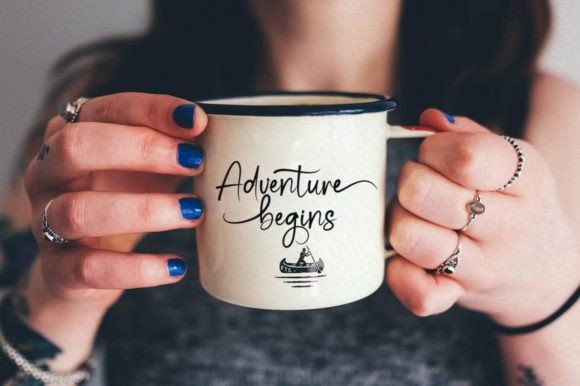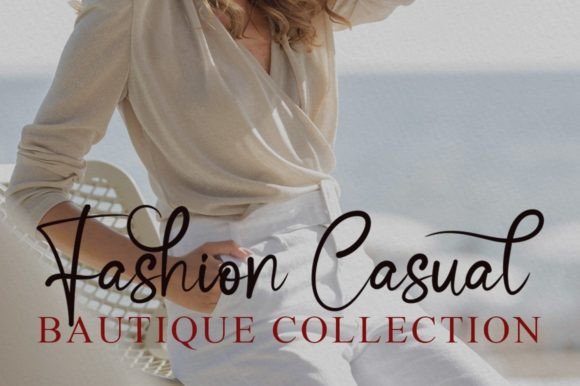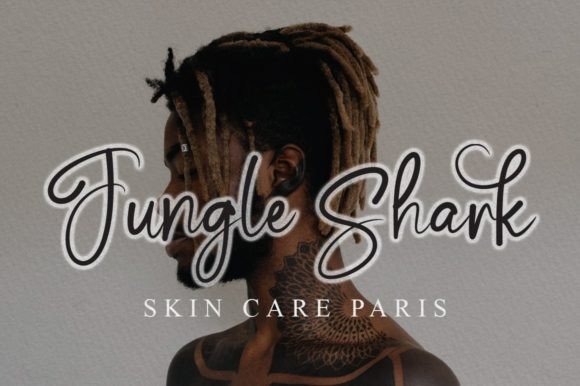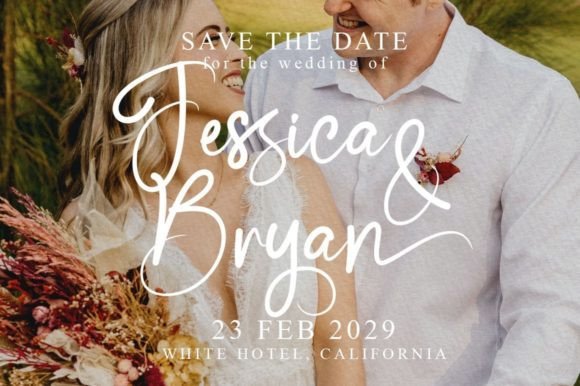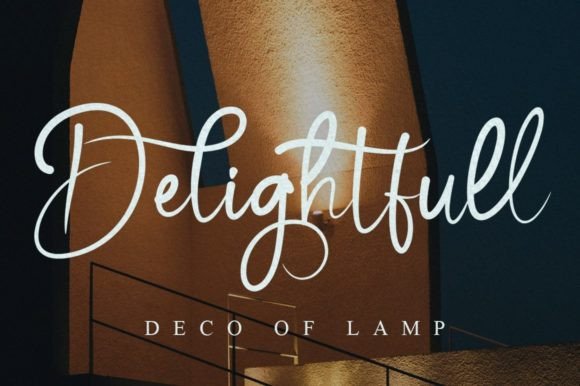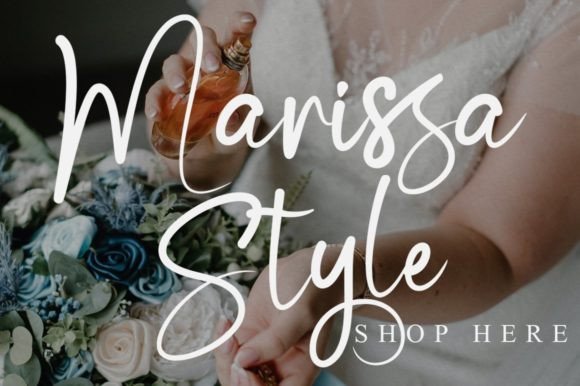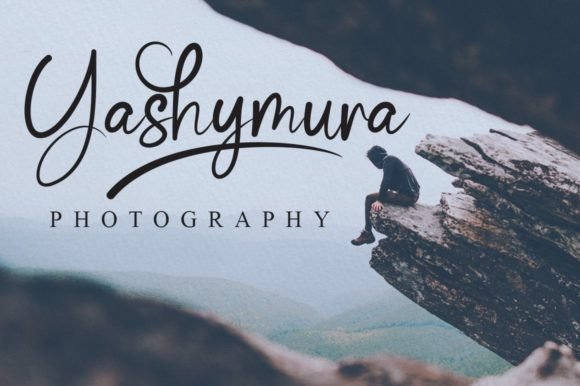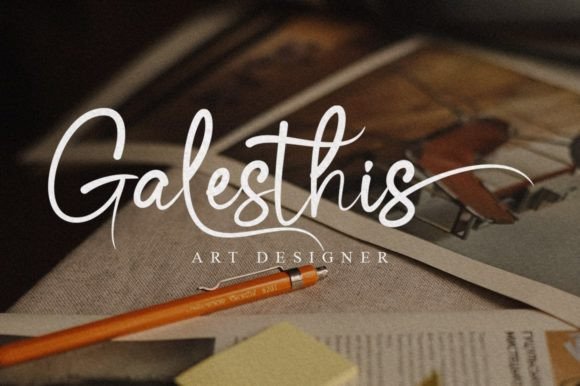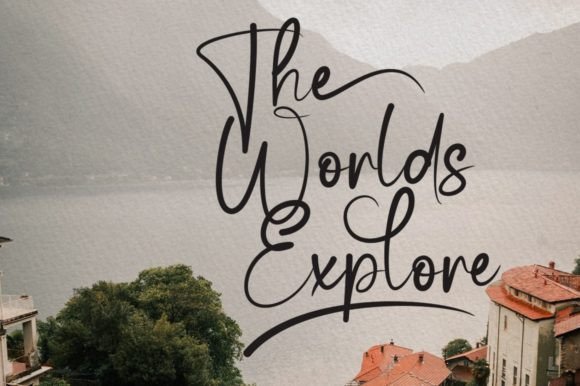
Shella Holix Font
About Shella Holix Font
“Shella Holix” is a font that effortlessly combines style and elegance, creating a beautifully handwritten script. Its sophisticated and refined appearance makes it an excellent choice for a variety of design applications, including wedding invitations, thank you cards, quotes, greeting cards, logos, business cards, and any project that benefits from a personalized touch.
The font’s stylish and elegant design adds a sense of luxury and sophistication to your text. Its handwritten style gives your designs a personal and artistic touch, making them suitable for both formal and creative contexts. “Shella Holix” enhances the visual appeal of your projects, creating a sense of timeless beauty and grace.
The font’s PUA (Private Use Area) encoding allows easy access to a wide range of glyphs and swashes, enhancing its versatility and customization options. Designers can effortlessly access these special characters to create unique and intricate typography for their projects. Whether you’re looking to add decorative elements or experiment with different letter combinations, “Shella Holix” provides the creative freedom to do so with ease.
Embrace the style and elegance of “Shella Holix” and let it elevate your creative projects to new heights. Its sophisticated and refined style ensures that your designs leave a lasting impression, conveying a sense of grace and artistry. Whether used in print or digital media, this font adds a touch of class to your compositions, making them visually stunning and captivating. With “Shella Holix,” you can confidently create designs that reflect your impeccable taste and attention to detail, making a memorable impact on anyone who encounters your work.